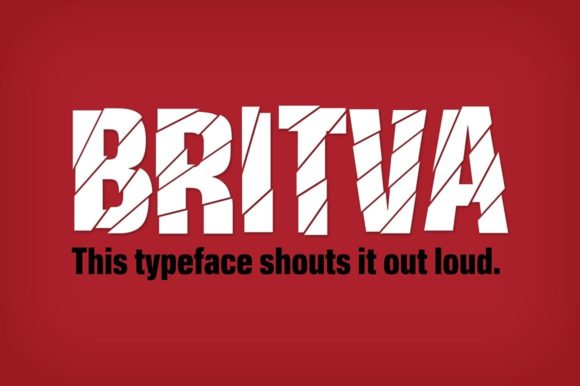
Britva Font: A Grunge and Display Sans Font for Eye-Catching Headlines
Are you looking for a font that can make your headlines stand out and grab attention? Look no further than Britva Font, a grunge and display sans font designed by Juraj Chrastina. In this article, we’ll take a closer look at the features and benefits of Britva Font and how it can elevate your typography.
What is Britva Font?
Britva Font is a grunge and display sans font published by Juraj Chrastina, a renowned font designer. It is derived from Valibuk, another popular font designed by Chrastina. Britva is designed to look like it is made from broken glass, giving it a unique and eye-catching appearance. The font is perfect for headlines, titles, and other display text where you want to make a bold statement.
Key Features of Britva Font
- Heavy and Condensed: Britva Font is a heavy, condensed face with a high x-height and tight spacing. This makes it perfect for headlines and titles where you want to convey a sense of boldness and urgency.
- Broken Glass Effect: The font is designed to look like it is made from broken glass, giving it a unique and grunge-like appearance.
- OpenType Contextual Alternates: The unbroken glyphs are accessible through OpenType contextual alternates, allowing you to switch between broken and smooth glyphs seamlessly.
The Inspiration Behind Britva Font
Britva Font is derived from Valibuk, another popular font designed by Juraj Chrastina. While Valibuk is a bold and condensed font, Britva takes it to the next level with its broken glass effect and heavy, condensed design. The inspiration behind Britva Font is to create a font that can literally shout out loud, making it perfect for headlines and titles where you want to grab attention.
Uses of Britva Font
- Headlines and Titles: Britva Font is perfect for headlines and titles where you want to make a bold statement.
- Posters and Flyers: The font is great for posters and flyers where you want to grab attention and convey a sense of urgency.
- Branding and Logo Design: Britva Font can be used for branding and logo design where you want to create a bold and memorable logo.
Benefits of Using Britva Font
There are several benefits to using Britva Font in your designs. Here are a few:
- Unique and Eye-Catching: Britva Font has a unique and eye-catching appearance that can help your designs stand out.
- Versatile: The font is versatile and can be used for a variety of design projects, from posters and flyers to branding and logo design.
- Easy to Read: Despite its bold and condensed design, Britva Font is easy to read, making it perfect for headlines and titles.
Tips for Using Britva Font
Here are a few tips for using Britva Font in your designs:
- Use it Sparingly: Britva Font is a bold and attention-grabbing font, so use it sparingly to avoid overwhelming your designs.
- Pair it with Other Fonts: Pair Britva Font with other fonts to create contrast and visual interest.
- Experiment with Different Sizes: Experiment with different sizes and weights of Britva Font to create a hierarchy of text.
Font Specifications
- Font Family: Britva
- Font Style: Grunge and Display Sans
- Font Designer: Juraj Chrastina
Britva Font is a unique and eye-catching grunge and display sans font that can add a bold and attention-grabbing touch to your designs. With its broken glass effect, heavy and condensed design, and OpenType contextual alternates, Britva Font is perfect for headlines, titles, and other display text. Whether you’re a graphic designer, typographer, or just a DIY enthusiast, Britva Font is a great addition to your font library.